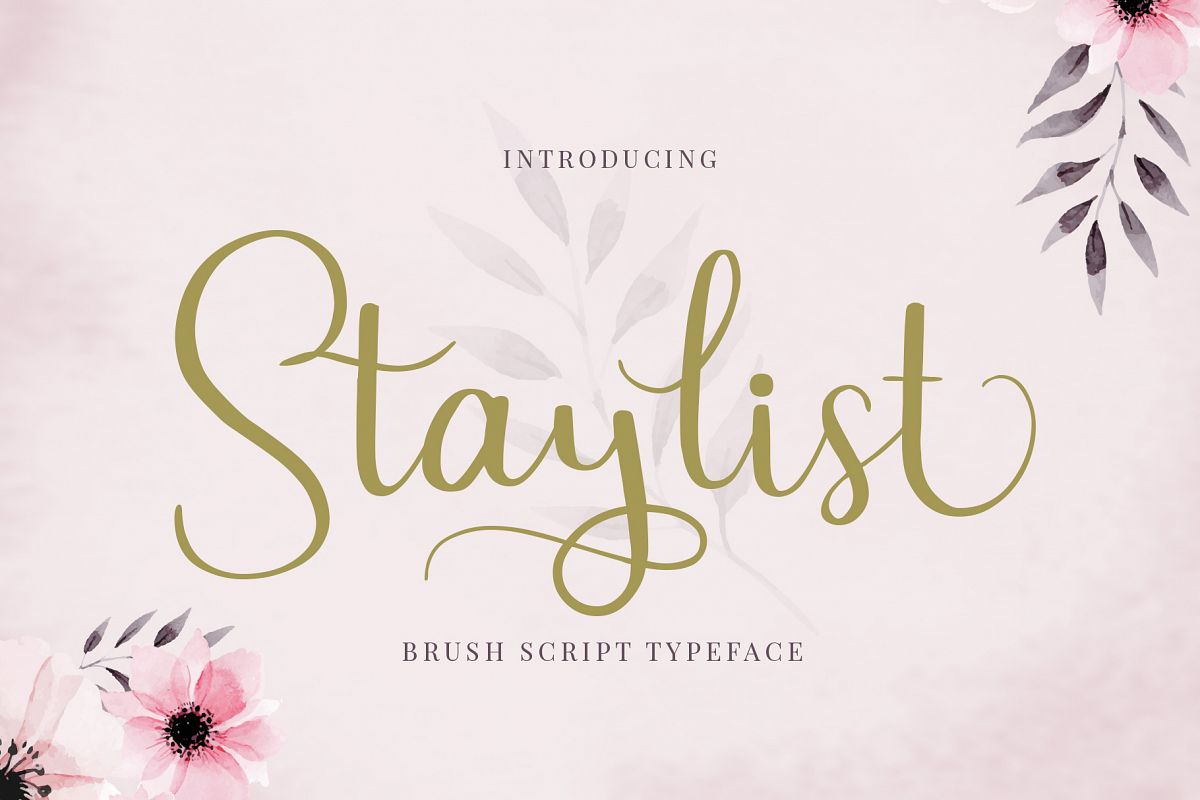
Staylist Script Font
Staylist
Staylist Script Font is beauty and cute font for any awesome projects such as wedding card, watermark, quote design, social media, poster, invitation card.What's Included :